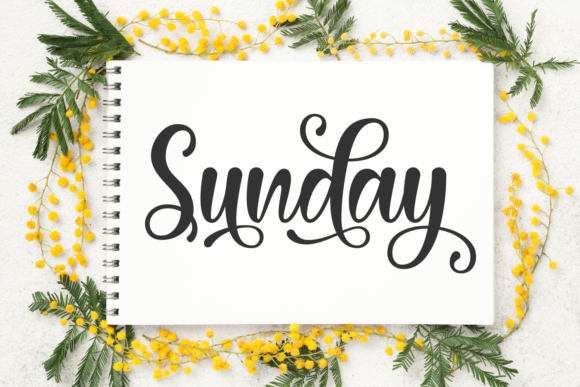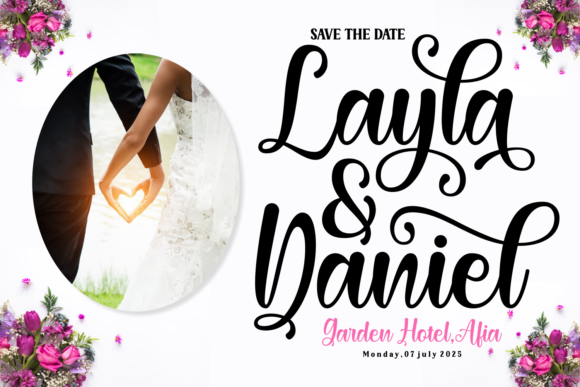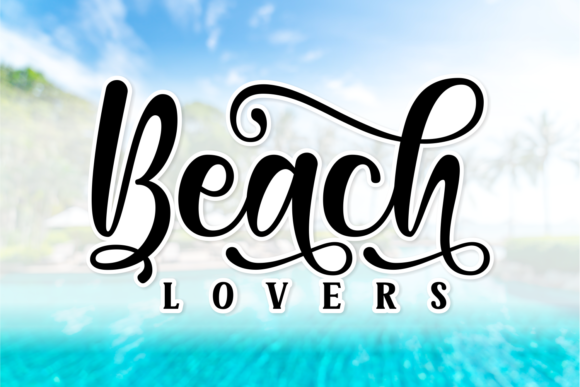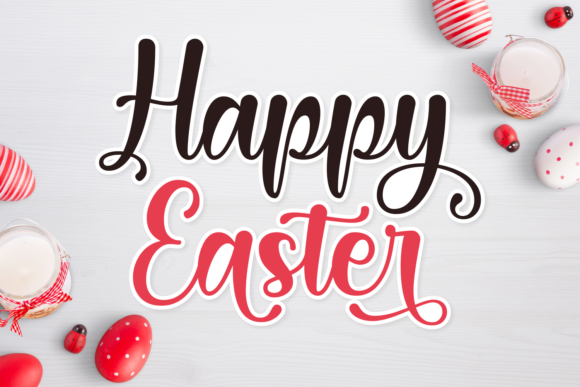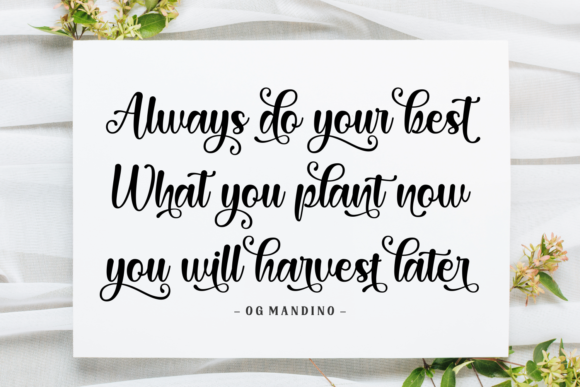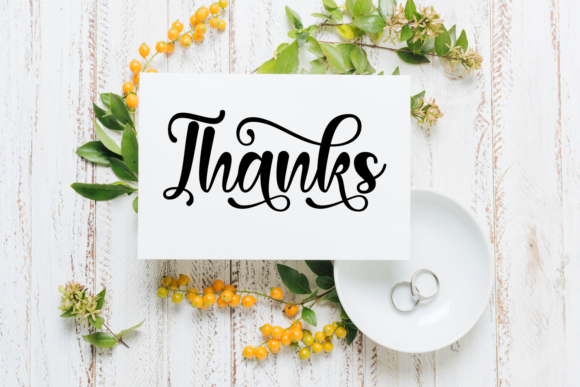
The Perfect Script for Your Masterpiece
Have you ever found yourself staring at a blank page, trying to come up with the perfect design? The cursor blinks, and your mind goes blank. But then, it hits you – the perfect font to bring your vision to life. For designers, the right font can make all the difference between a good design and a great one.
Enter Bainbridge Beautiful Font, a stunning script font that exudes elegance and sophistication. This beautiful font is designed to add a touch of whimsy and romance to any project, from wedding invitations to greeting cards. With its PUA encoding, you’ll have access to all the glyphs and swashes you need to create truly unique designs.
Bainbridge Beautiful Font Key Features
- Font Family: Bainbridge Beautiful Font is a beautiful and elegant script font, perfect for adding a touch of sophistication to any design project.
- Unique Characteristics: Features beautiful, flowing connections and elegant flourishes, making it perfect for creating a sense of luxury and refinement in your designs.
- Language Support: Supports a wide range of languages, including Latin, Cyrillic, and Greek alphabets, making it a versatile choice for designers working on international projects.
Bainbridge Beautiful Font Review
Overall, I’m impressed with the Bainbridge Beautiful Font. It’s a stunning, elegant script font that can elevate any design project. ✨ Here are some things I love about it:
- Its fluid, handwritten feel makes it perfect for invitations, wedding stationery, and other special occasion designs.
- The font is highly customizable, with a wide range of OpenType features that allow for subtle variations in letterform and spacing.
- The font is well-behaved, meaning it’s easy to use and doesn’t require a lot of fuss to get it looking its best.
That being said, there are a few limitations to consider:
- The font may be too ornate for some designs, particularly those that require a more straightforward or minimalist aesthetic. ⚠️
- The font’s high stroke weight can make it difficult to read at smaller sizes.
- The font’s OpenType features can be overwhelming for those who are new to font customization.
Overall, I’d say the Bainbridge Beautiful Font is a great choice for designers who want to add a touch of elegance and sophistication to their projects. While it may have some limitations, its versatility and customization options make it a worthwhile investment for anyone looking to take their designs to the next level.
Tips for Getting the Most Out of Bainbridge Beautiful Font
Here are a few tips to help you get the most out of the Bainbridge Beautiful Font:
- Use the font in combination with other elegant fonts for a sophisticated look.
- Use the font in headings and titles to add a touch of elegance.
The Bainbridge Beautiful Font is perfect for:
- Wed
Alternatives to Bainbridge Beautiful Font
Lato Font is a modern sans-serif typeface that is highly legible and versatile. It is ideal for use in digital products, apps, and websites where a clean and minimalistic look is desired. Lato Font is more geometric in its design compared to Bainbridge Beautiful Font, making it a better choice for modern and tech-savvy designs.
Playfair Display Font is an elegant and luxurious serif typeface that is perfect for creating a high-end and sophisticated look. It is ideal for use in branding, packaging, and print materials where a touch of sophistication is desired. Playfair Display Font is more ornate and decorative compared to Bainbridge Beautiful Font, making it a better choice for high-end designs.